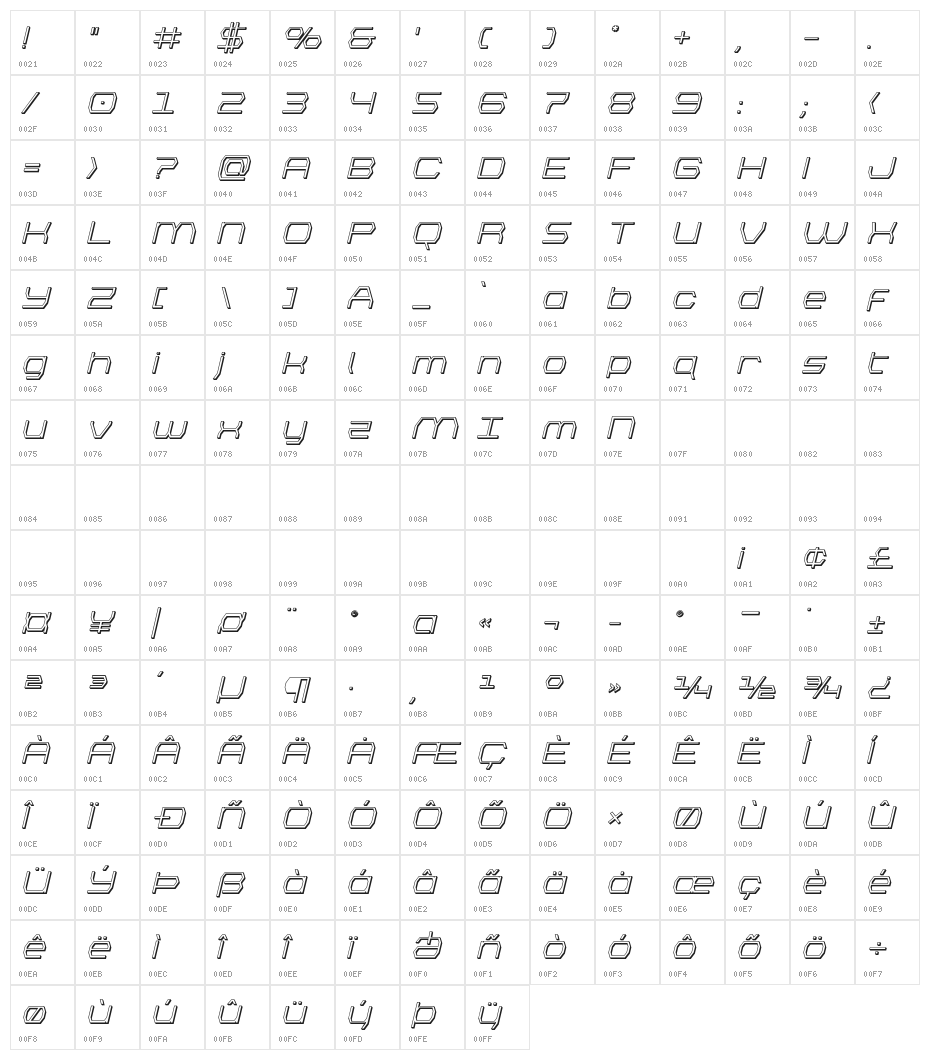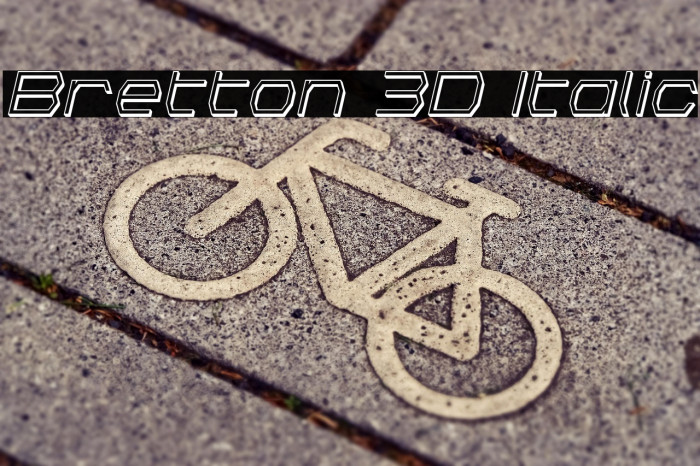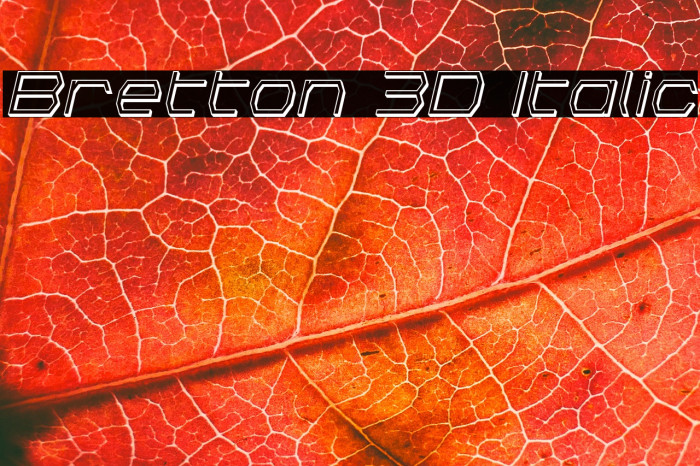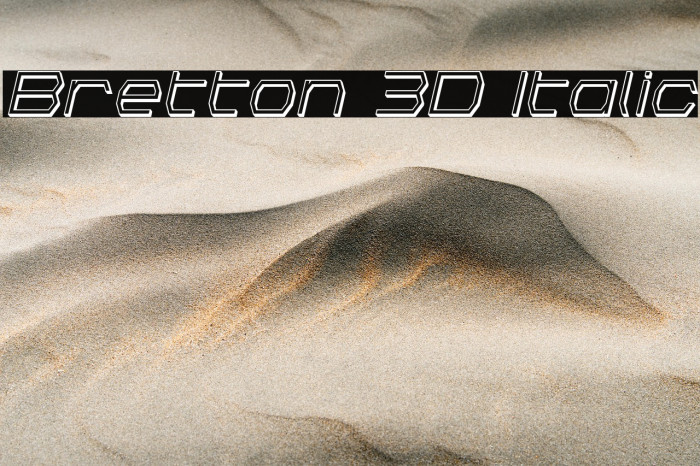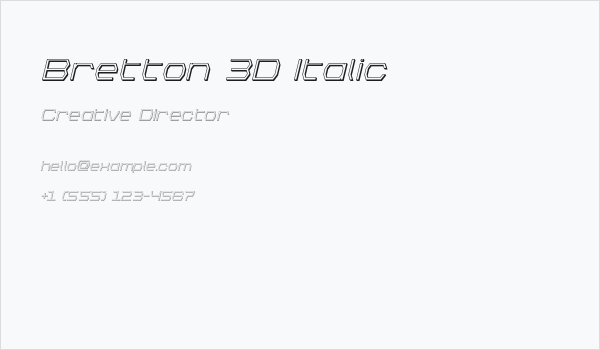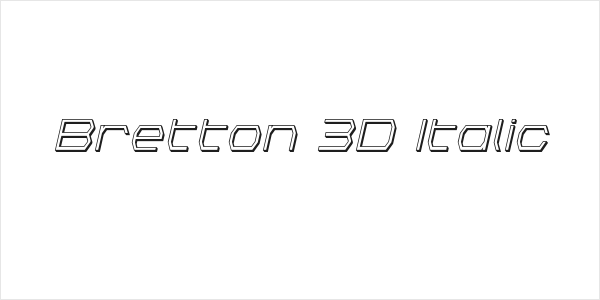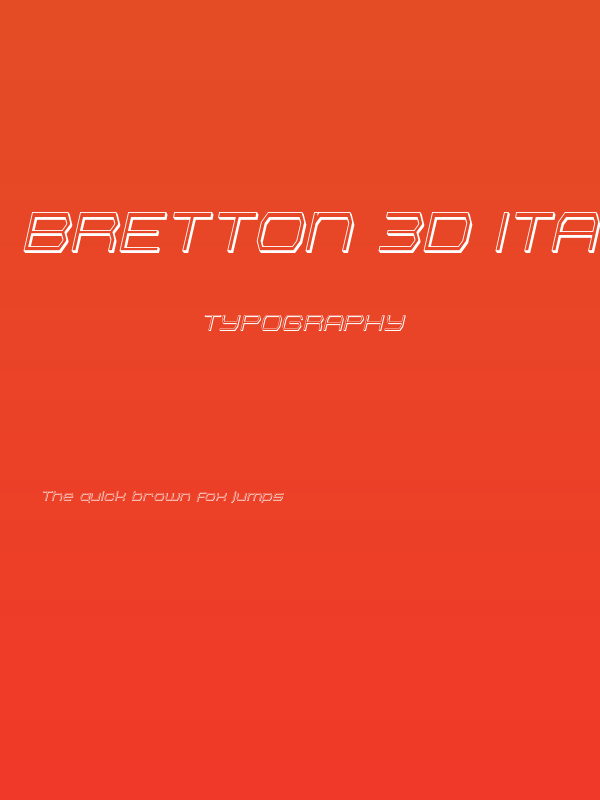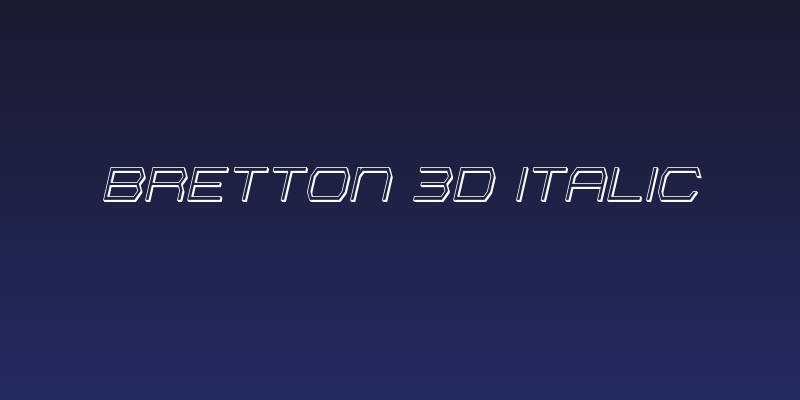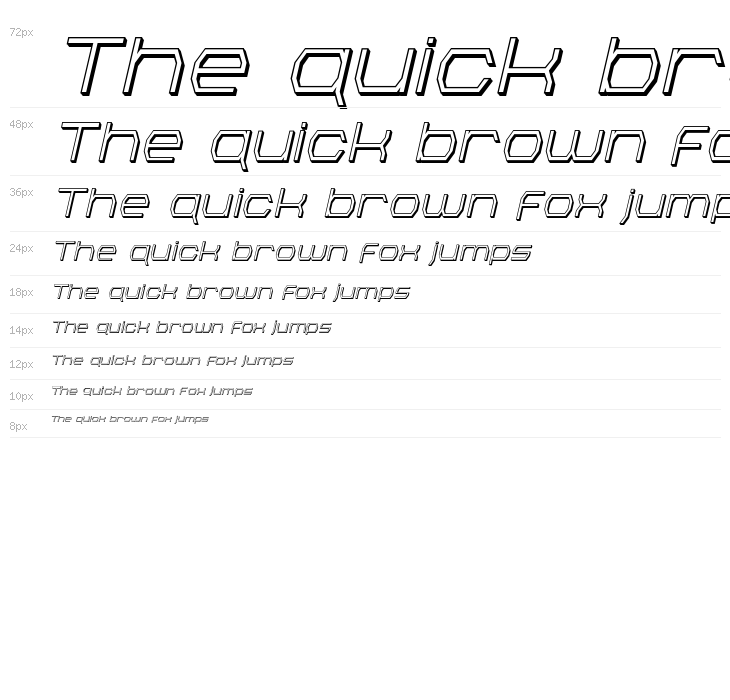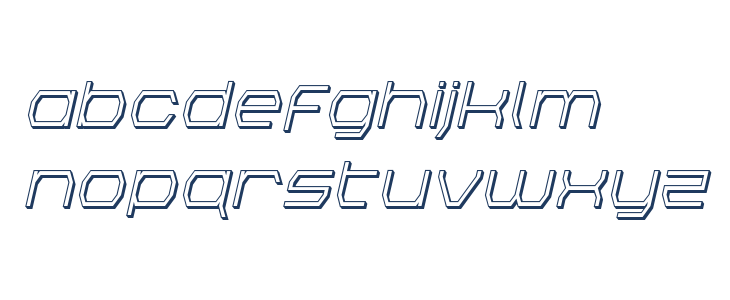
Bretton 3D Italic Font
Bretton 3D Italic Description
This font features a distinct 3D effect with a bold outline that gives each character a sense of depth and dimension. The italicized style adds a dynamic and forward-leaning appearance, enhancing its modern and futuristic aesthetic. Each letter and number is crafted with precision, maintaining a consistent geometric structure throughout. The characters are well-spaced, ensuring readability while retaining the unique visual appeal of the 3D effect. The font includes a full set of uppercase and lowercase letters, numbers, and a variety of special characters, making it versatile for various design needs.
Proposed ProjectsIdeal for futuristic designs, tech branding, video game titles, and sci-fi themed projects.